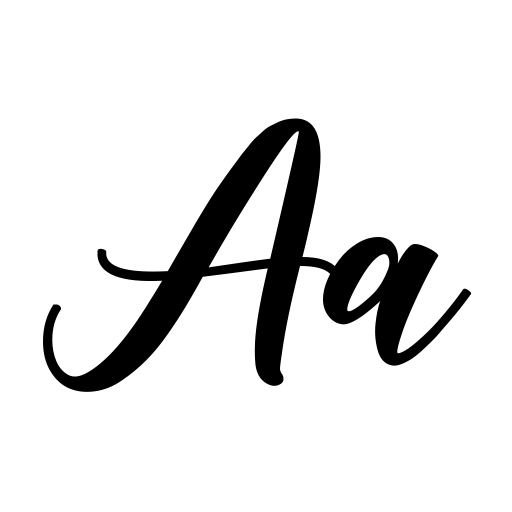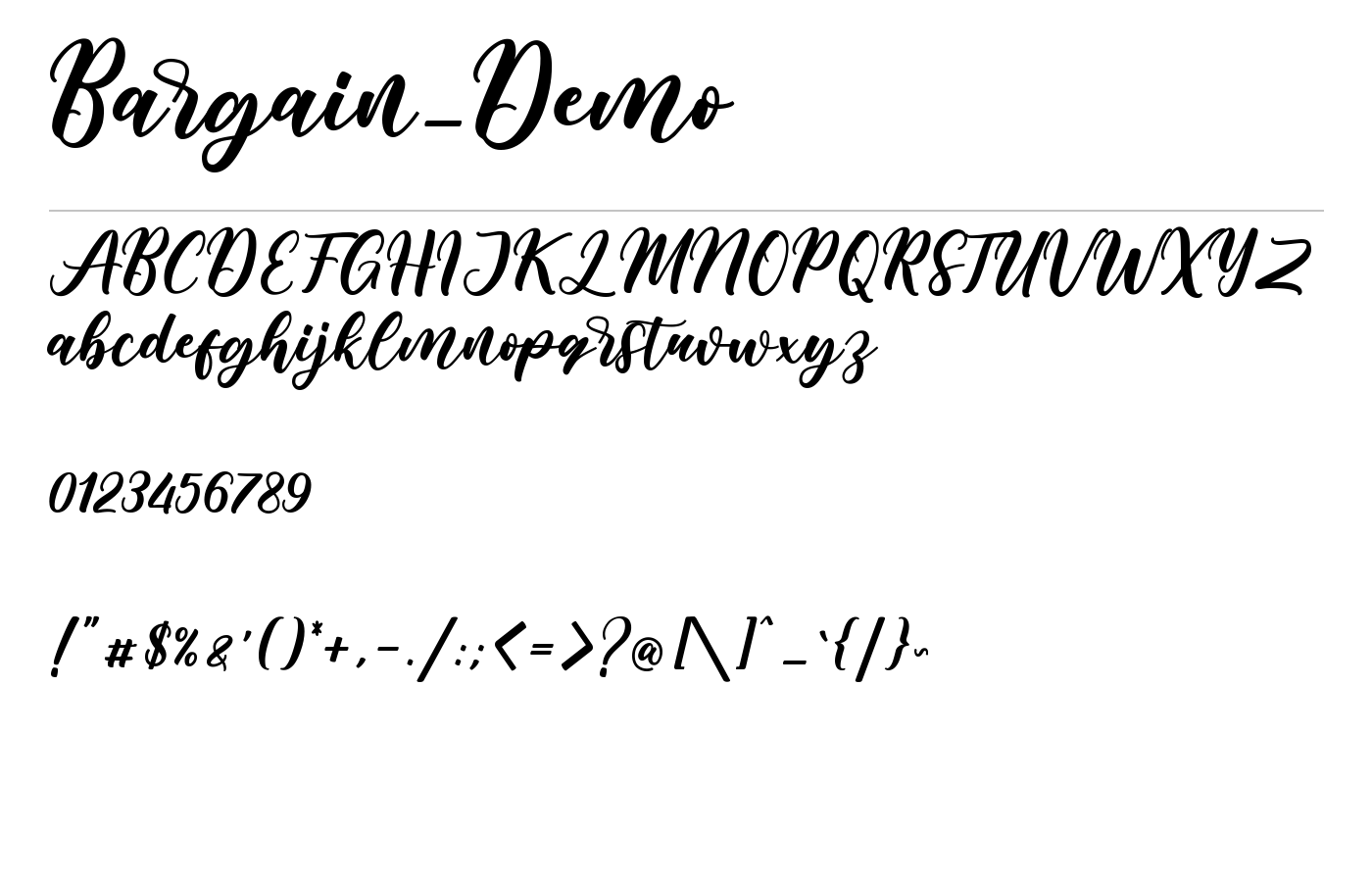
Bargain_Demo is a lively script font with a handwritten feel, featuring smooth, flowing strokes and moderate contrast that add a touch of elegance and friendliness. Its slightly condensed letterforms and playful curves make it perfect for creative branding, invitations, and headlines where a warm, personal touch is desired. This font works well for designs needing a blend of casual charm and refined style.
Bargain_Demo Font
About Bargain_Demo Font